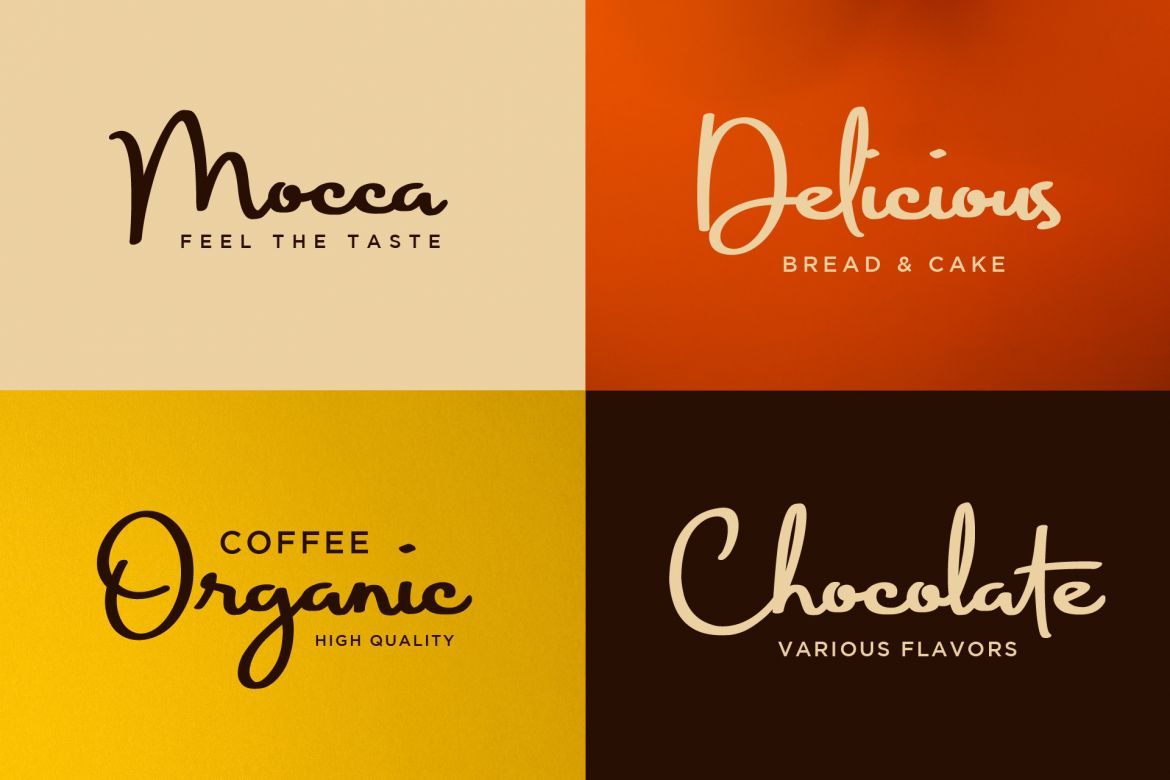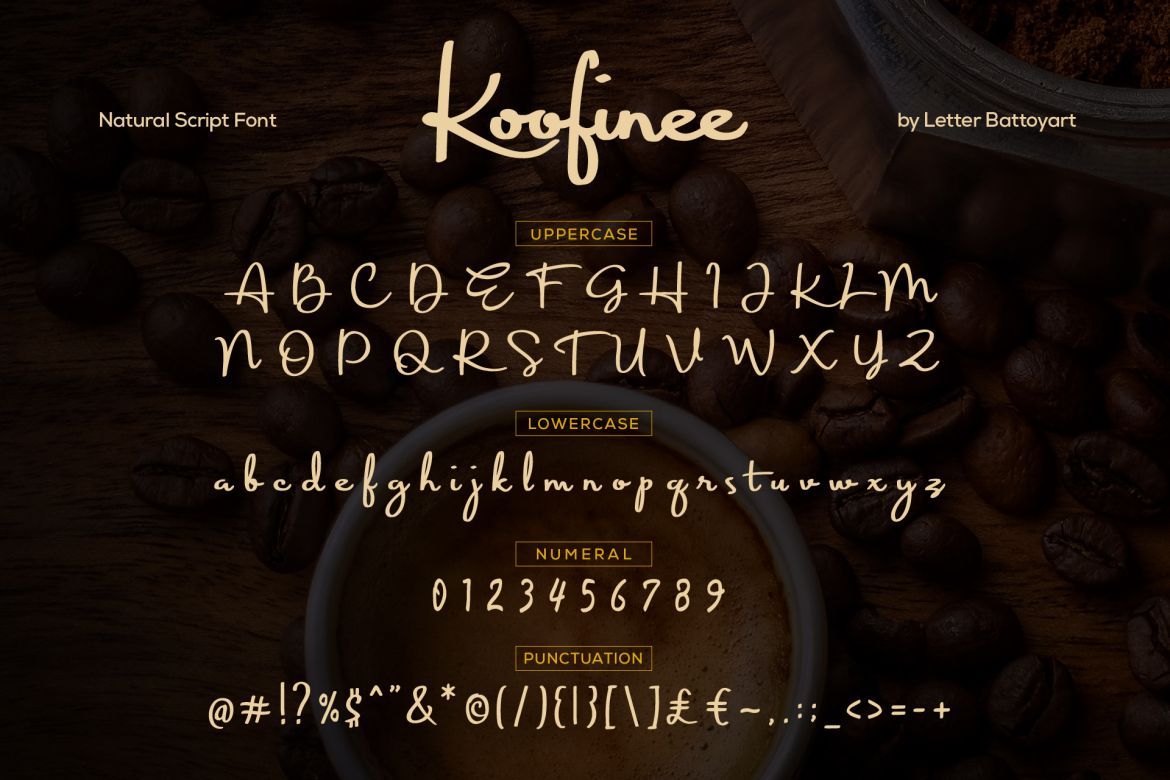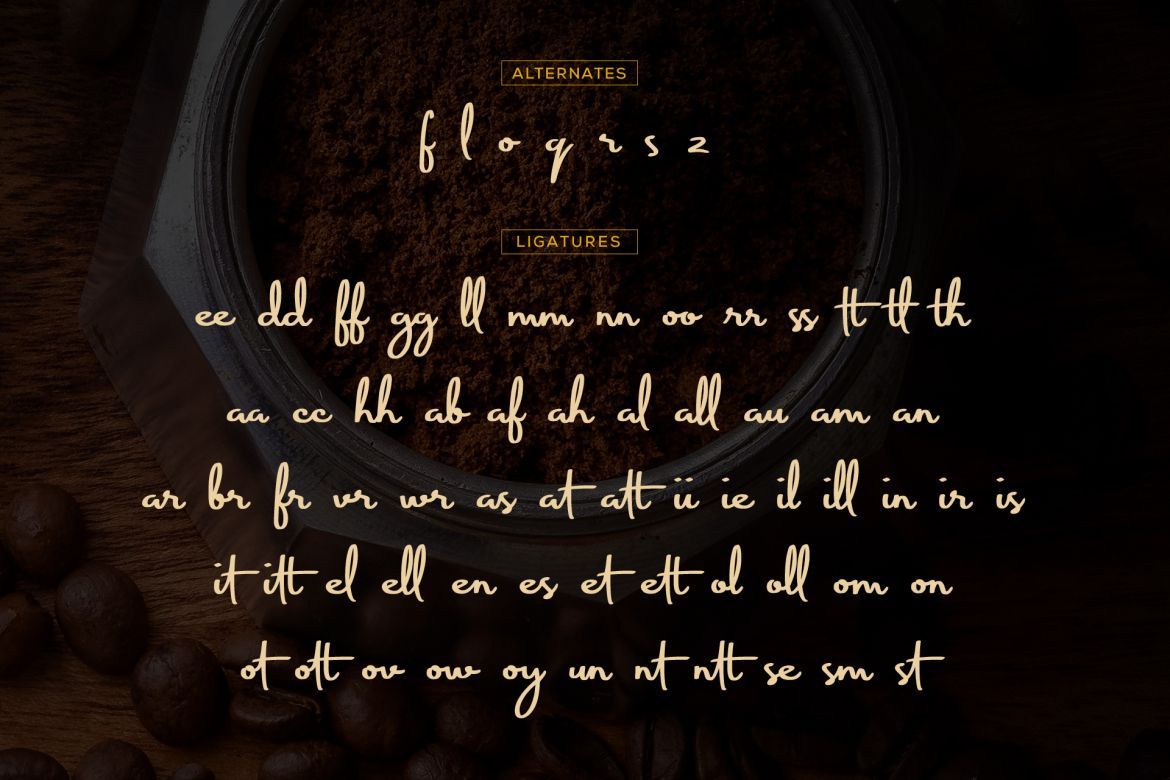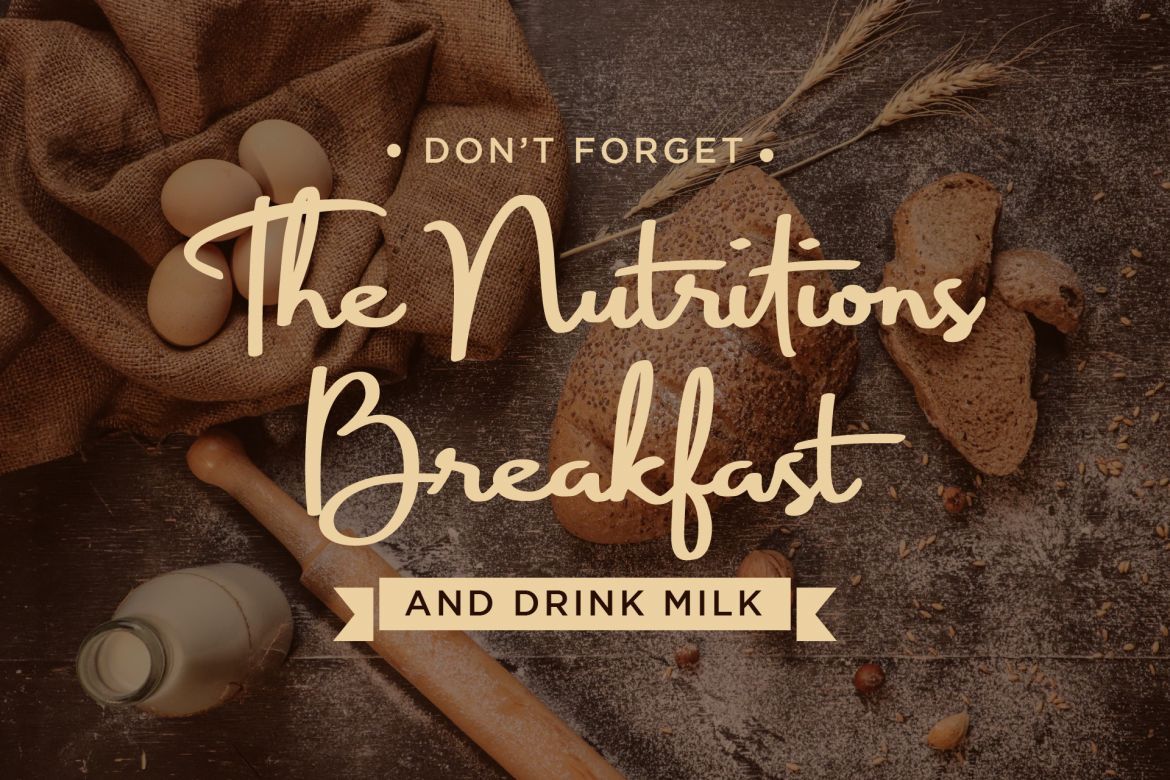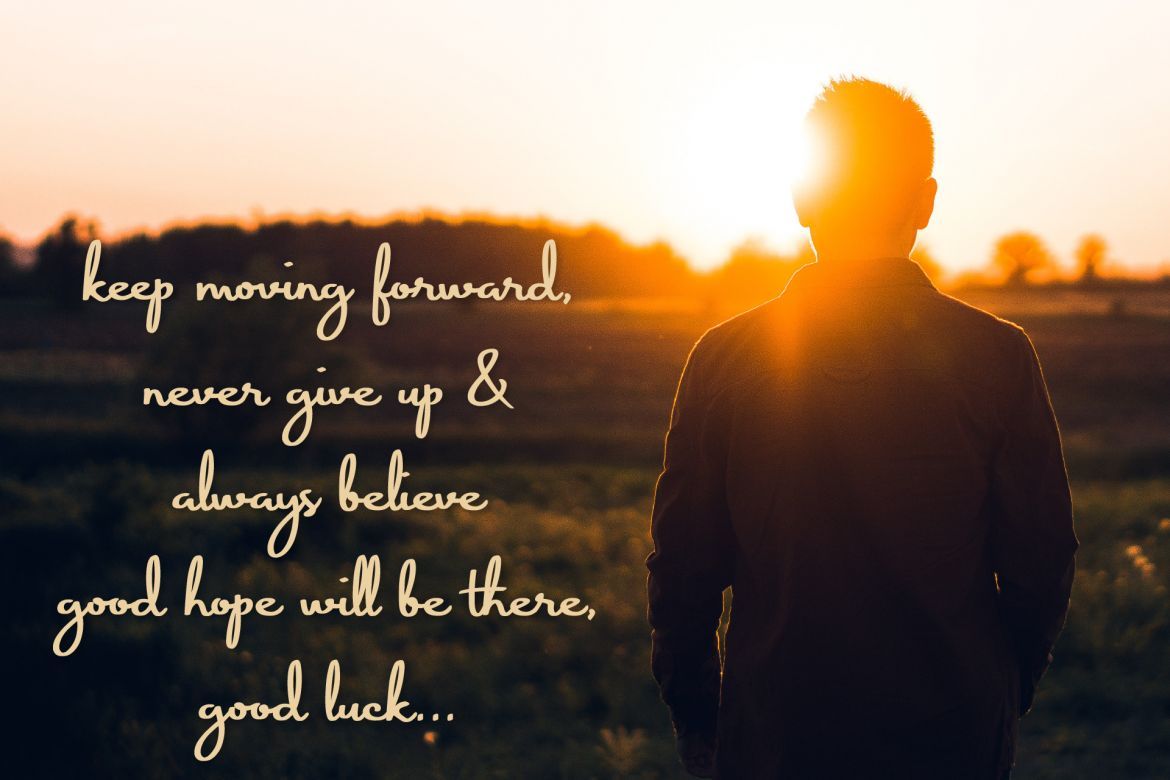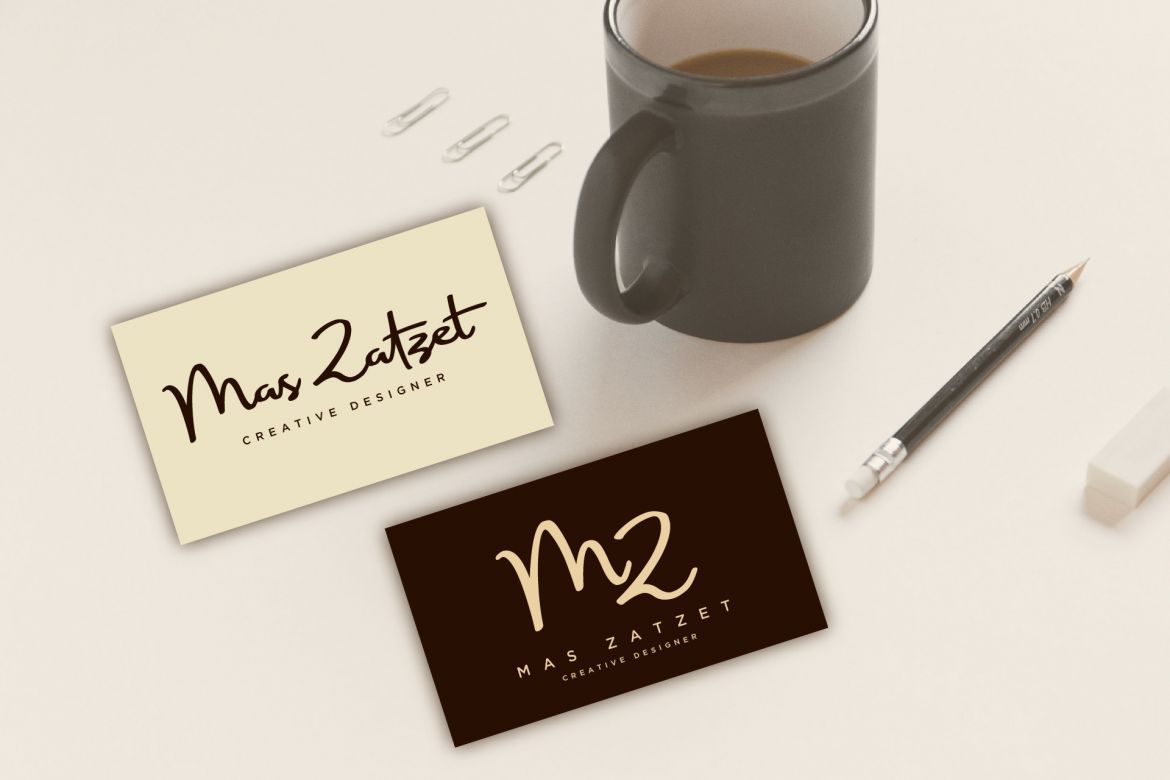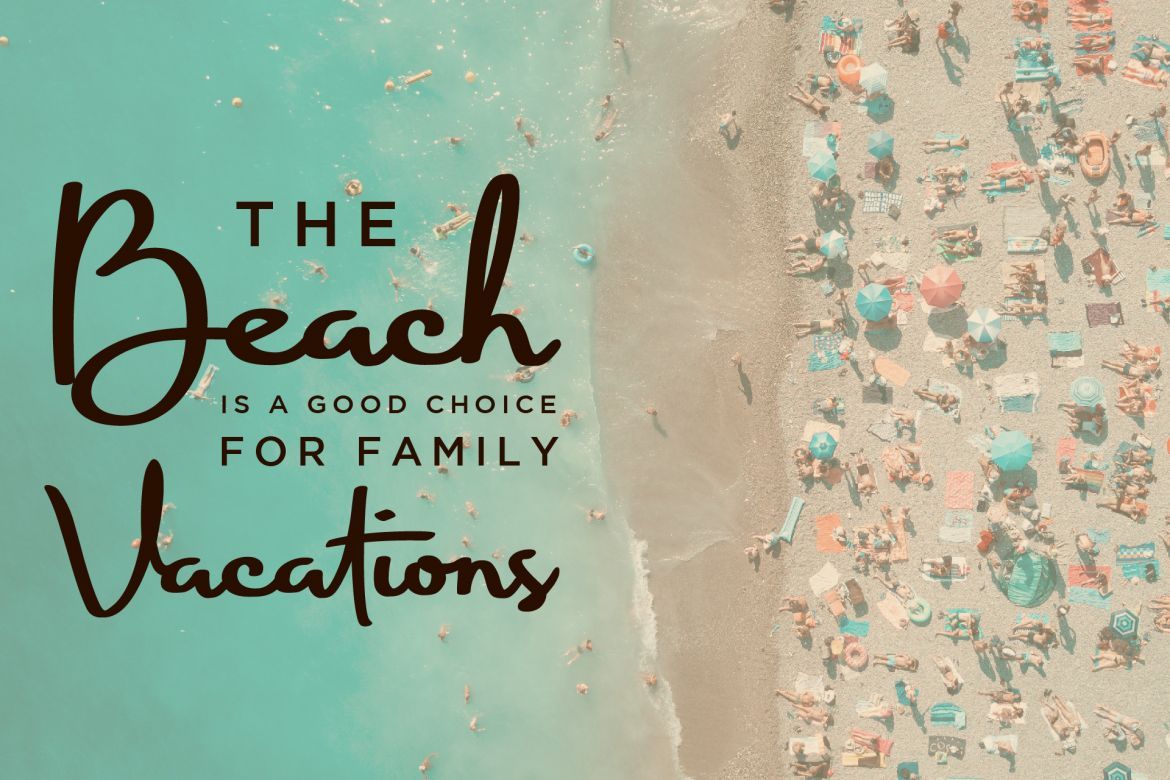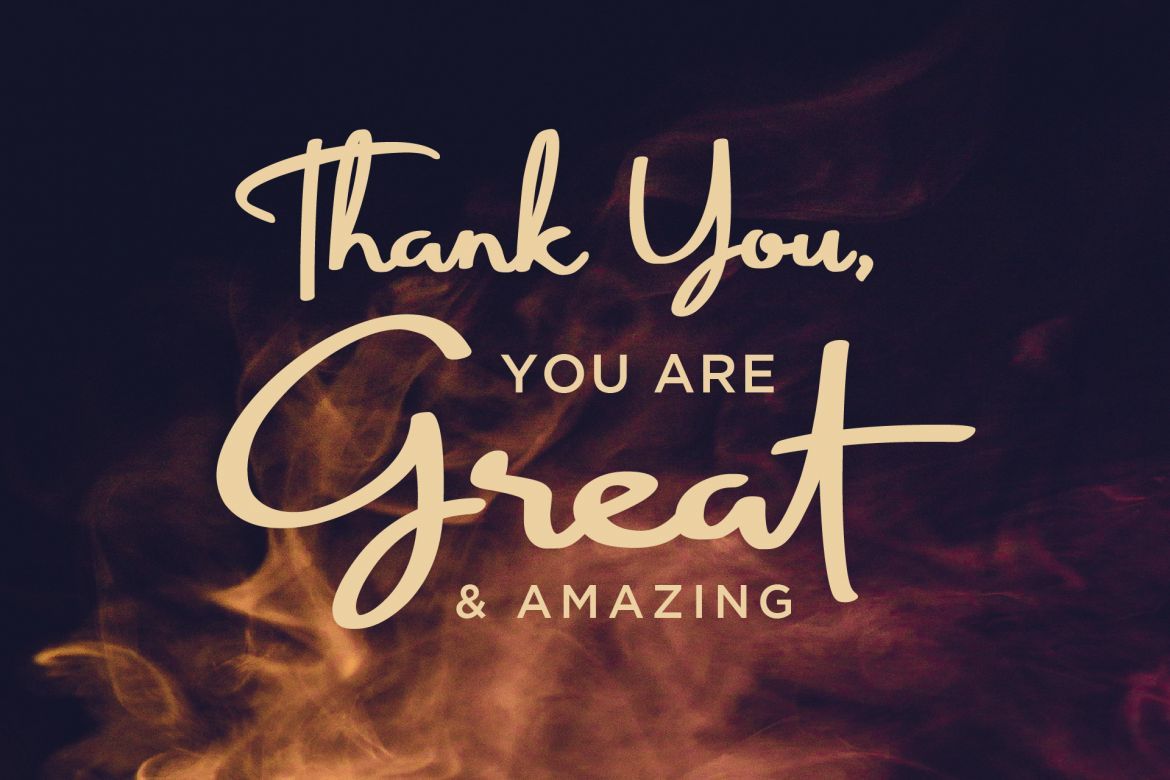
Koofinee - Natural Script Font
we just now proudly introduce our latest product Koofinee Script Font with touch natural and this font with cool style. these fonts are great for logo, wedding card, natural, clothing brand, poster, business card, clothing, branding, quotes, party invitation, poster, magazine and many many other. this font best choice for you.
• - stylistic alternates, ligatures & multilingual support
• - uppercase, lowercase, numeral, punctuation & symbol